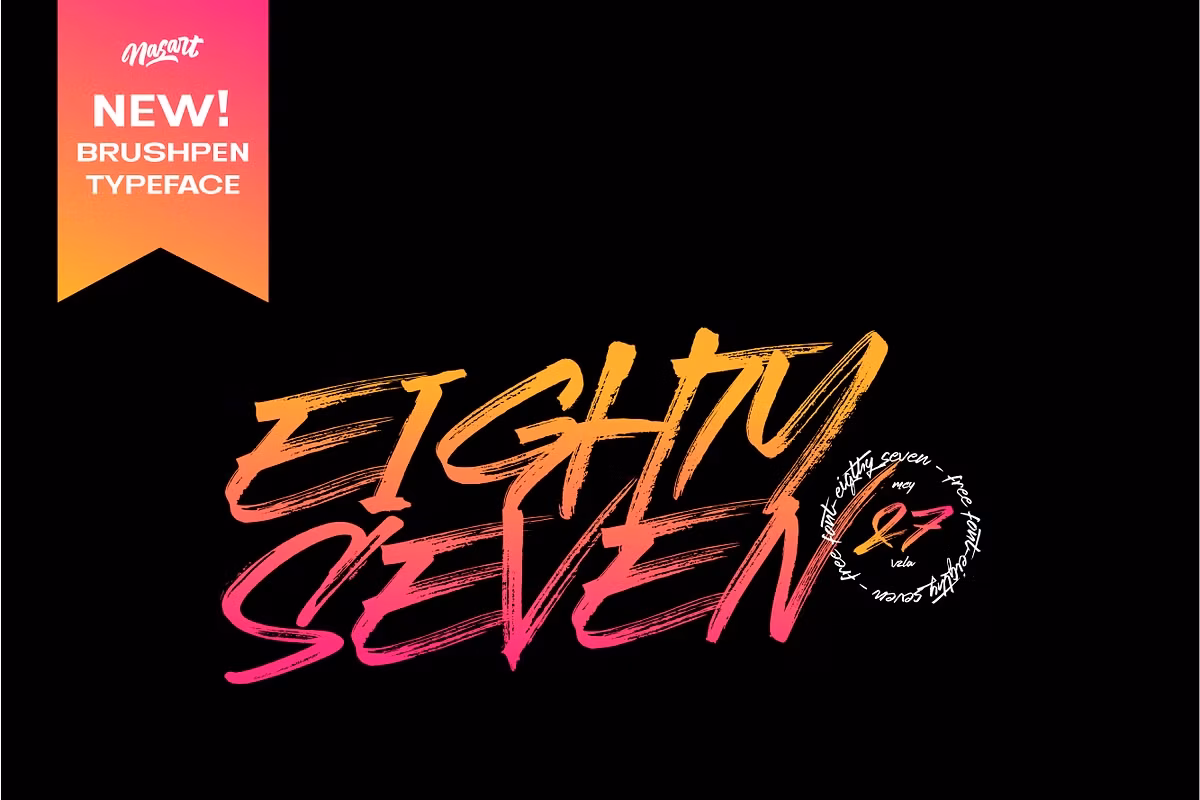
LT EIGHTY SEVEN Font Free Download is a bold and retro-inspired display typeface that captures the iconic spirit of the 1980s. Please note: you must purchase this font for commercial use, but you can test it through a free download. With its sharp angles, condensed structure, and nostalgic vibe, LT EIGHTY SEVEN is perfect for posters, music artwork, event flyers, apparel design, retro branding, and social media graphics.
This font is designed to make a statement—ideal for creatives who want to channel vintage energy with a modern twist. Whether you're crafting a synthwave album cover or a bold streetwear logo, LT EIGHTY SEVEN Font Free Download brings high-impact style and throwback flair to your typography. Fully compatible with Adobe Illustrator, Photoshop, Canva, and more. Download it today for personal use and electrify your designs with the retro cool of LT EIGHTY SEVEN.